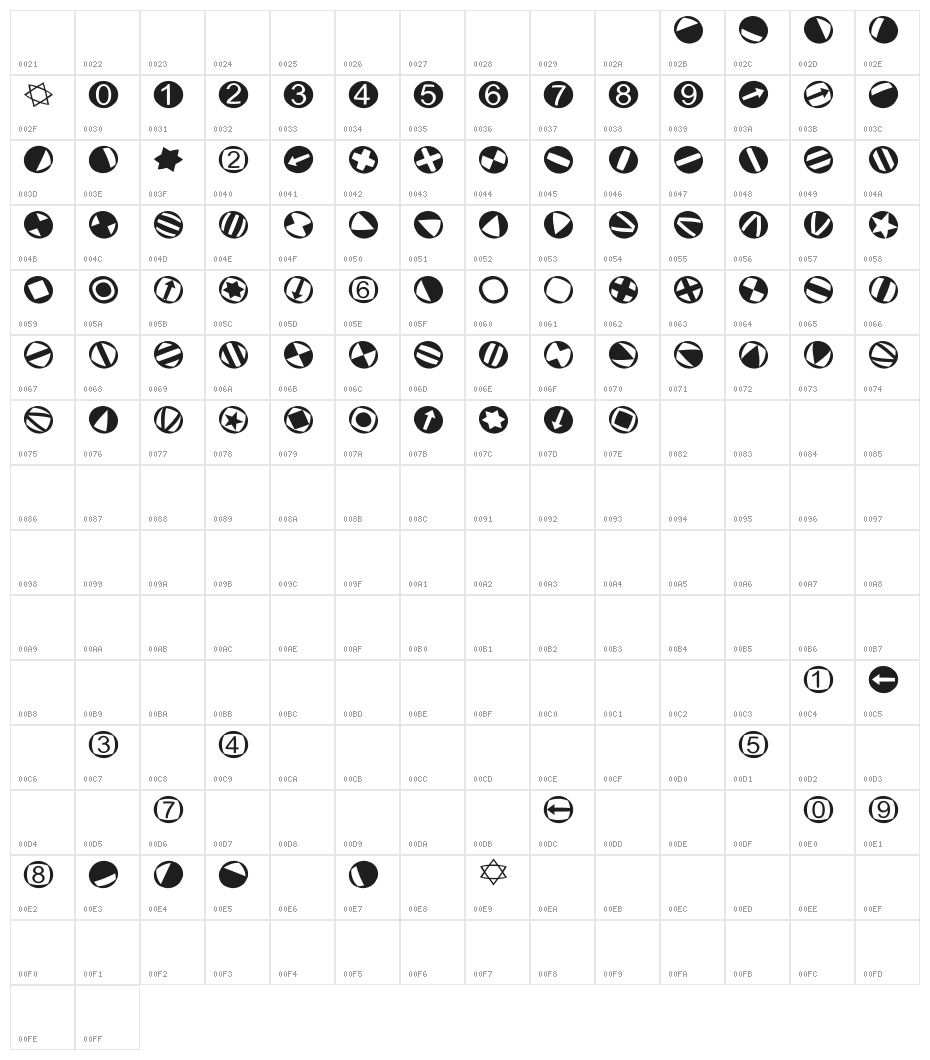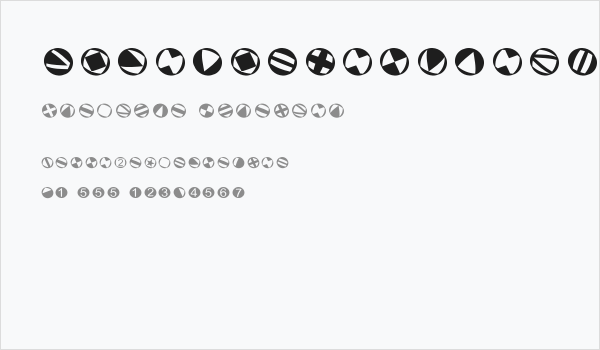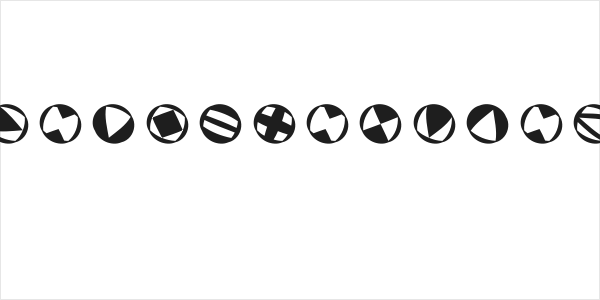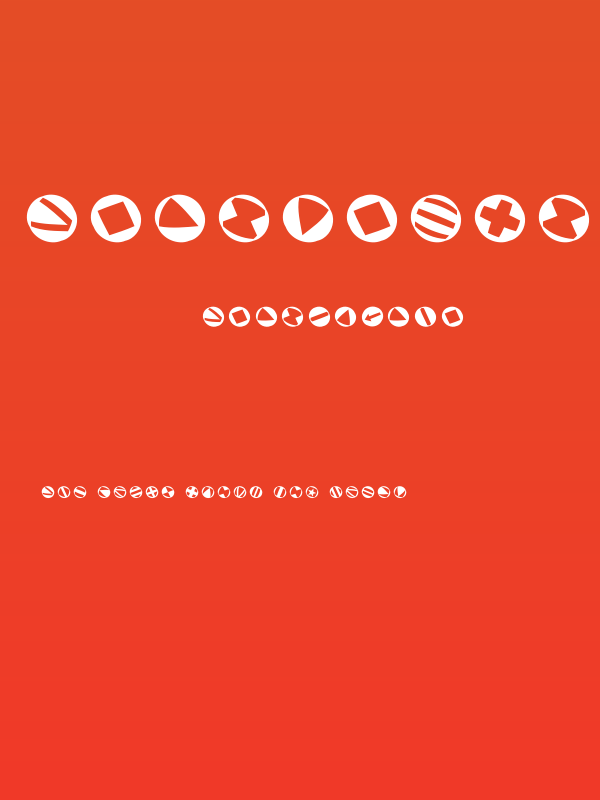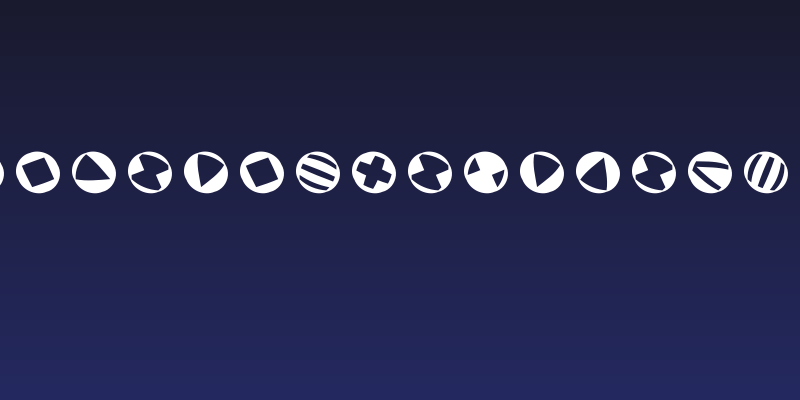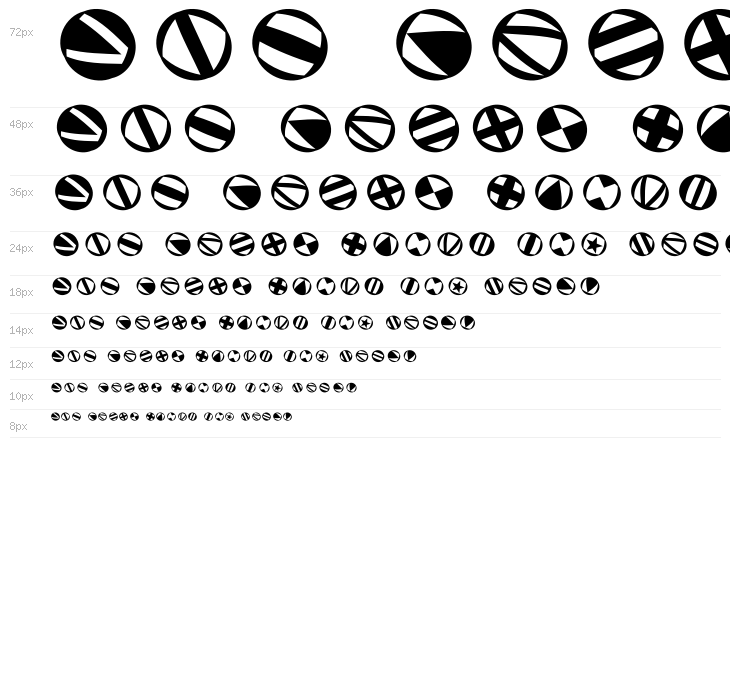
TypoSymbolsRound Font
TypoSymbolsRound Description
This font features a unique and playful design where each character is enclosed within a circle, creating a distinct and cohesive look. The characters are abstract and geometric, with a mix of solid and striped patterns that add a dynamic and modern touch. The numbers are clearly distinguishable, each within its own circle, maintaining the consistent circular theme. The special characters are creatively designed, incorporating familiar symbols with a twist, such as stars and arrows, all within the circular motif. This font is ideal for projects that require a bold and artistic statement, offering a fresh take on traditional typography.
| Use Case | Logos, Posters, Artistic Projects |
| Proposed Projects | Ideal for creative posters, modern art projects, unique branding, and playful invitations. |